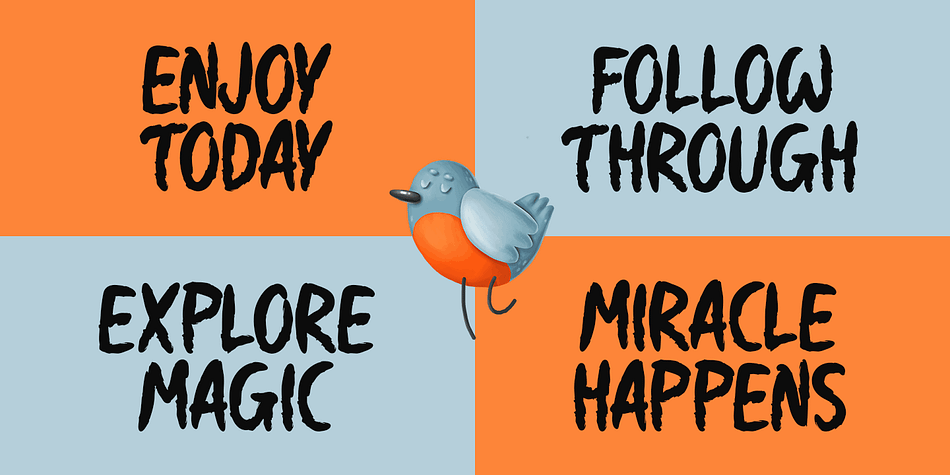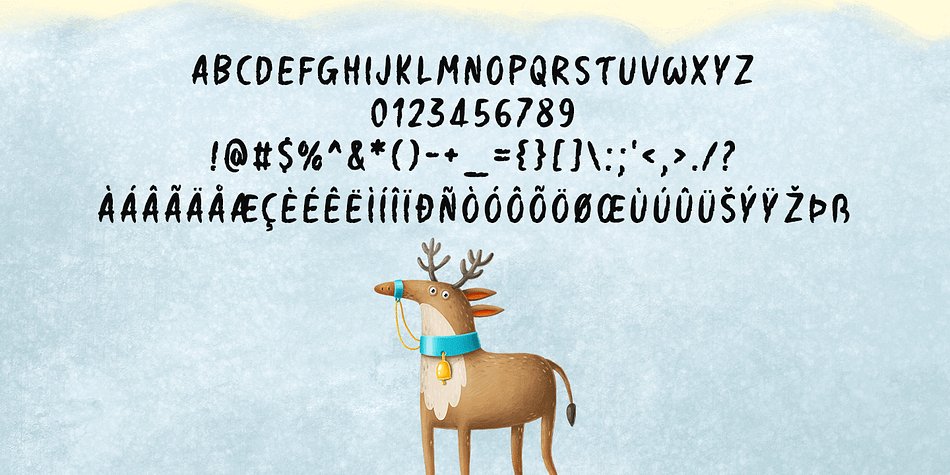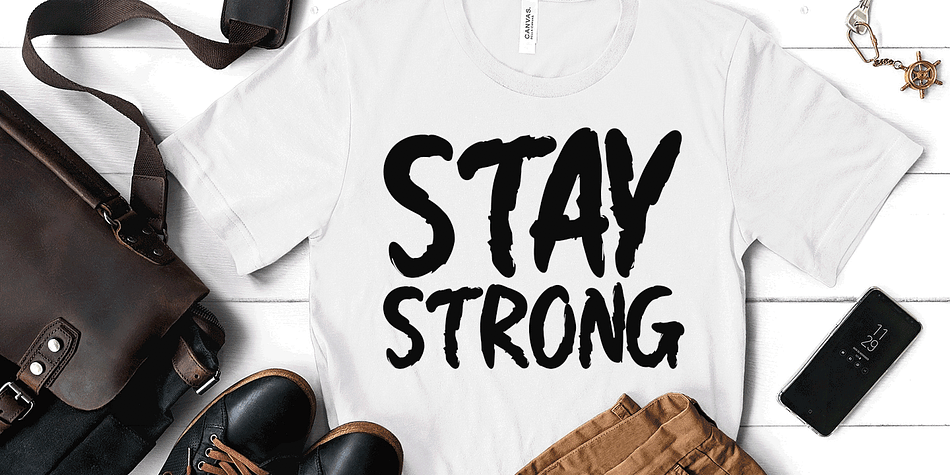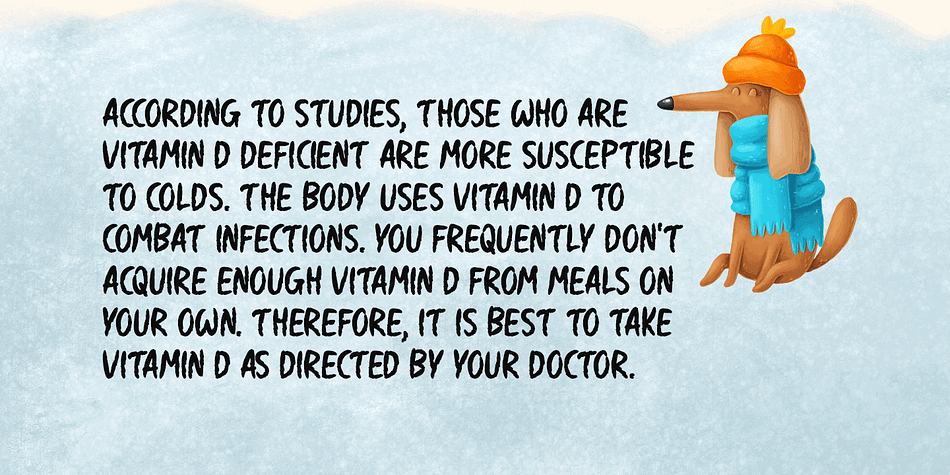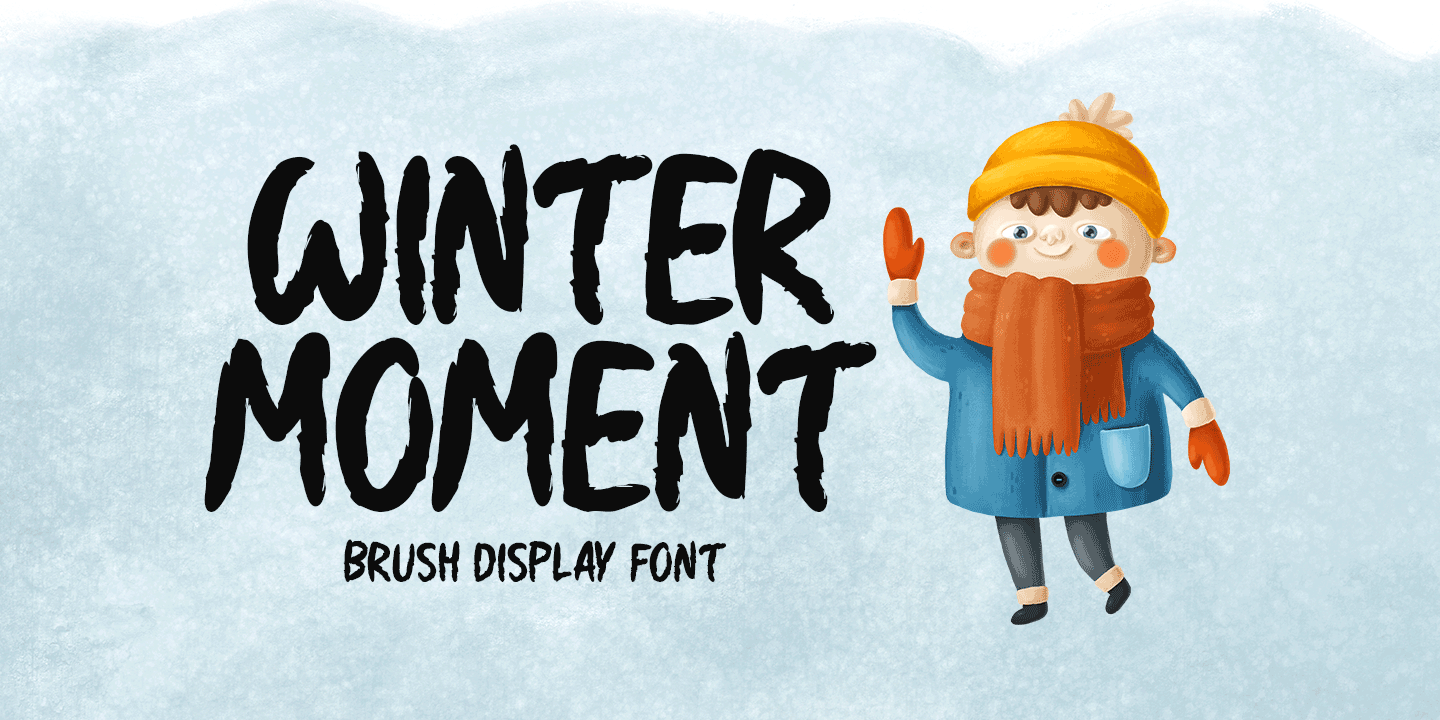
WINTER MOMENT
Designed by Md. Shohail Bhuiyan, Winter Moment is a brush display, display sans and grunge font family published by Seemly Fonts.
Winter Moment, a new brushed display typeface. A variety of different things, including stationery, logos, t-shirts, paper, print designs, website headers, picture frames, flyers, record covers, posters, image sliders, and much more.
Styles Brush Display, Display Sans, Grunge
Designer Md. Shohail Bhuiyan